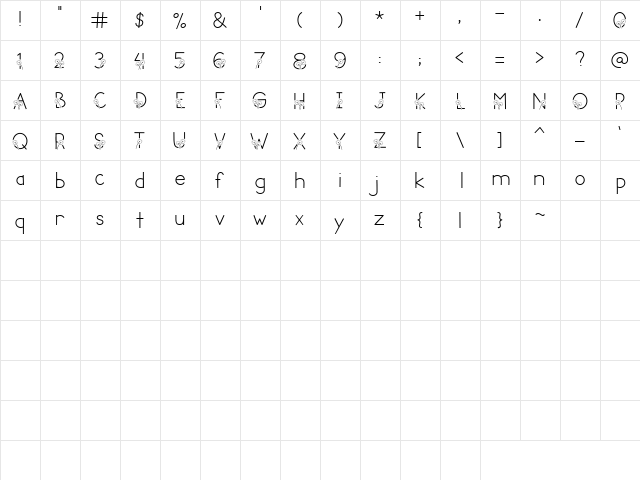
LD Dandelion Regular
Design Context for LD Dandelion Typeface
LD Dandelion takes a measured approach to typography — its balanced proportions and neutral character make it a reliable workhorse for both digital and print work.